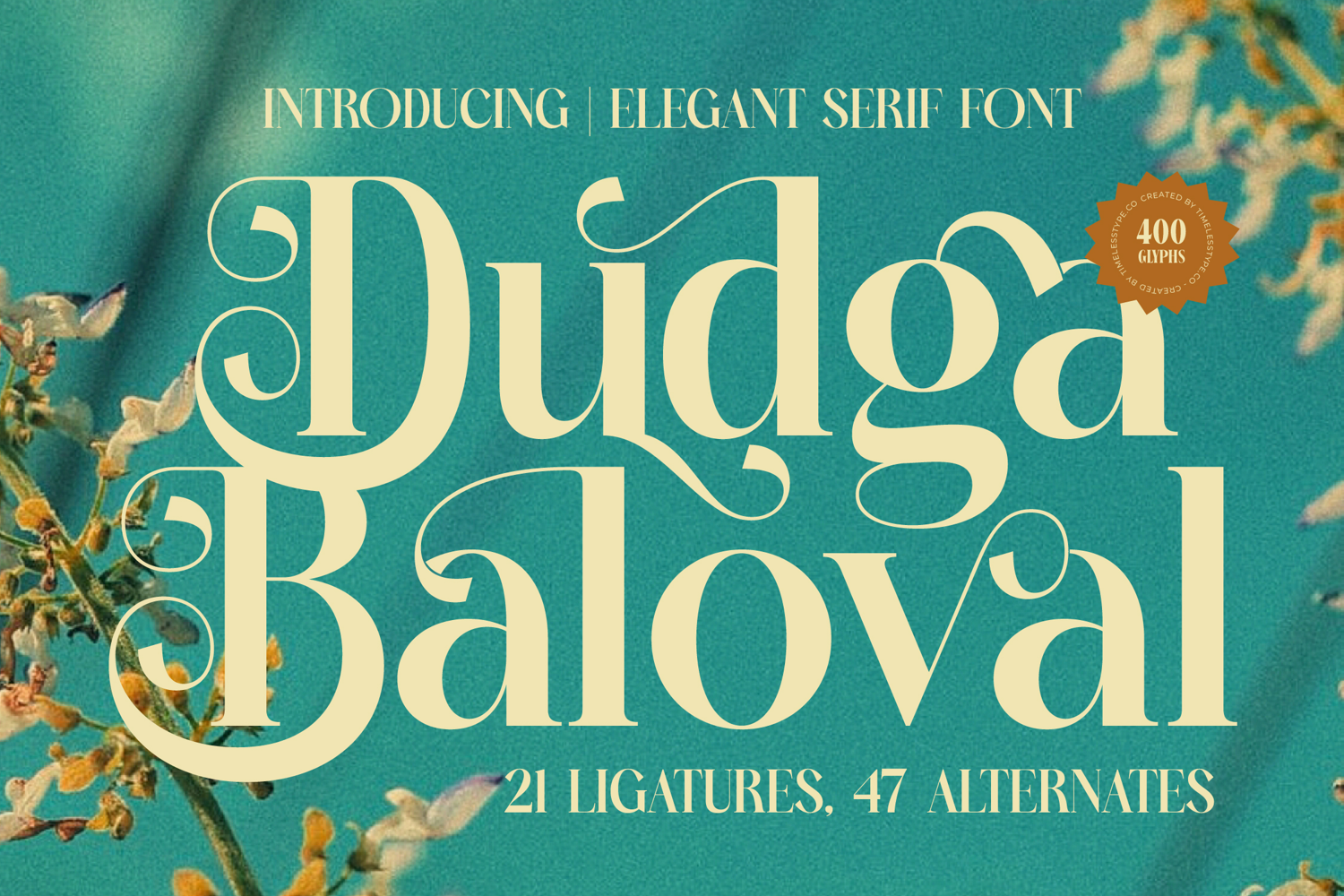
Dudga Baloval - Elegant Serif Font
Dudga Baloval
Dudga Baloval Italic
Dudga Baloval - Elegant Serif Font
Elevate your designs with unparalleled grace. Introducing Font Dudga Baloval - Elegant Serif Font Serif Display, a typeface that redefines sophistication with its captivating balance of classic elegance and modern flair. This high-contrast serif display font boasts delicate curves and commanding strokes, making it an instant focal point for any visual narrative. Its refined aesthetic ensures timeless appeal, perfect for making a powerful, memorable statement.
Unleash boundless creativity with a rich array of design possibilities. Font Dudga Baloval - Elegant Serif Font Serif Display features an impressive suite of 21 ligatures and 47 alternates, alongside 400 meticulously crafted glyphs. This extensive character set offers designers versatile design options, enabling unique typographic expressions and bespoke branding solutions that truly stand out with a distinctive personality.
Expand your reach to a global audience without compromise. With its extensive multilingual support, Font Dudga Baloval - Elegant Serif Font Serif Display adapts seamlessly across global markets, making it incredibly versatile for international projects. This comprehensive language coverage ensures your message maintains its professional utility and elegant impact, regardless of geographical boundaries.
Perfect for luxury branding, editorial design, and high-end packaging, Font Dudga Baloval - Elegant Serif Font Serif Display is engineered to transform ordinary layouts into extraordinary experiences. Whether gracing magazine headlines, elegant invitations, or sophisticated product labels, this font guarantees to elevate your projects and leave a truly memorable impression, solidifying brand prestige.